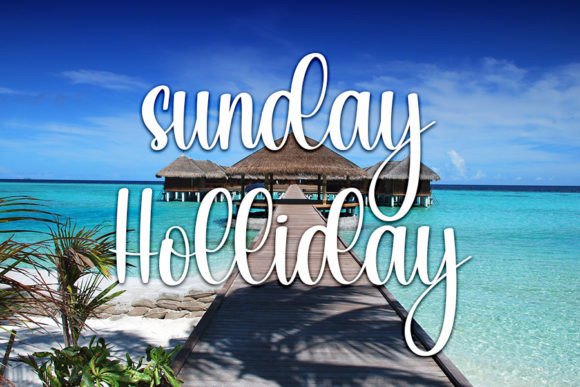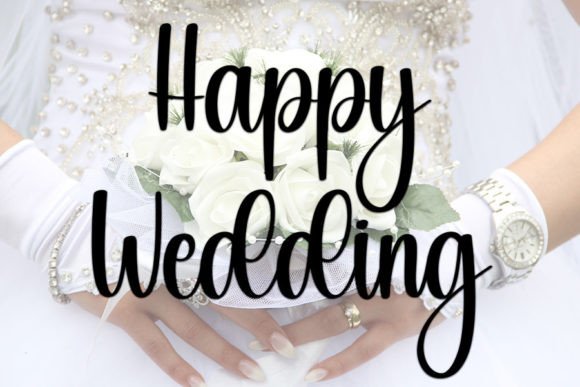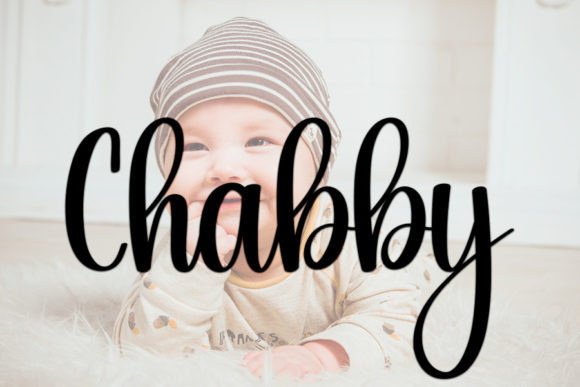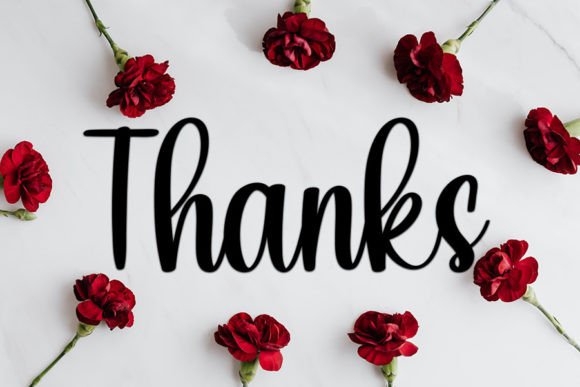
The Eagle Font: A Timeless Beauty for Your Designs
I’ll never forget the moment I stumbled upon the Eagle font. I was working on a project for a client who wanted a elegant and sophisticated look, but I was struggling to find the right font to convey that feeling. That’s when I discovered Eagle – a neat and beautiful handwritten font that instantly caught my attention. Its elegant touch and distinct style made me fall in love with it, and I knew I had to share it with the world.
An Honest Review of Eagle Font
- ✨ Elegant and sophisticated feel
- 💫 Beautifully crafted with attention to detail
- 🎨 Versatile and perfect for a variety of design projects
While Eagle font is amazing, there are a few things to keep in mind:
- 🤔 Some characters may not work well in all contexts, so be sure to test them out
- ⚠️ Limited availability of certain OpenType features
Eagle font comes with a range of OpenType features and glyphs that can help you take your designs to the next level. Here are a few things to explore:
- Stylistic alternates: Experiment with different font styles to add some personality to your text
- Glyphs: Use the glyph panel to access special characters and symbols
The Story Behind Eagle Font
Eagle font was designed by a talented typographer who wanted to create a font that was both elegant and timeless. Inspired by classic handwritten fonts, Eagle was crafted with attention to detail and a passion for beautiful design.
Q: What is Eagle font?
Eagle font is a beautiful handwritten font with an elegant touch, perfect for a variety of design projects.